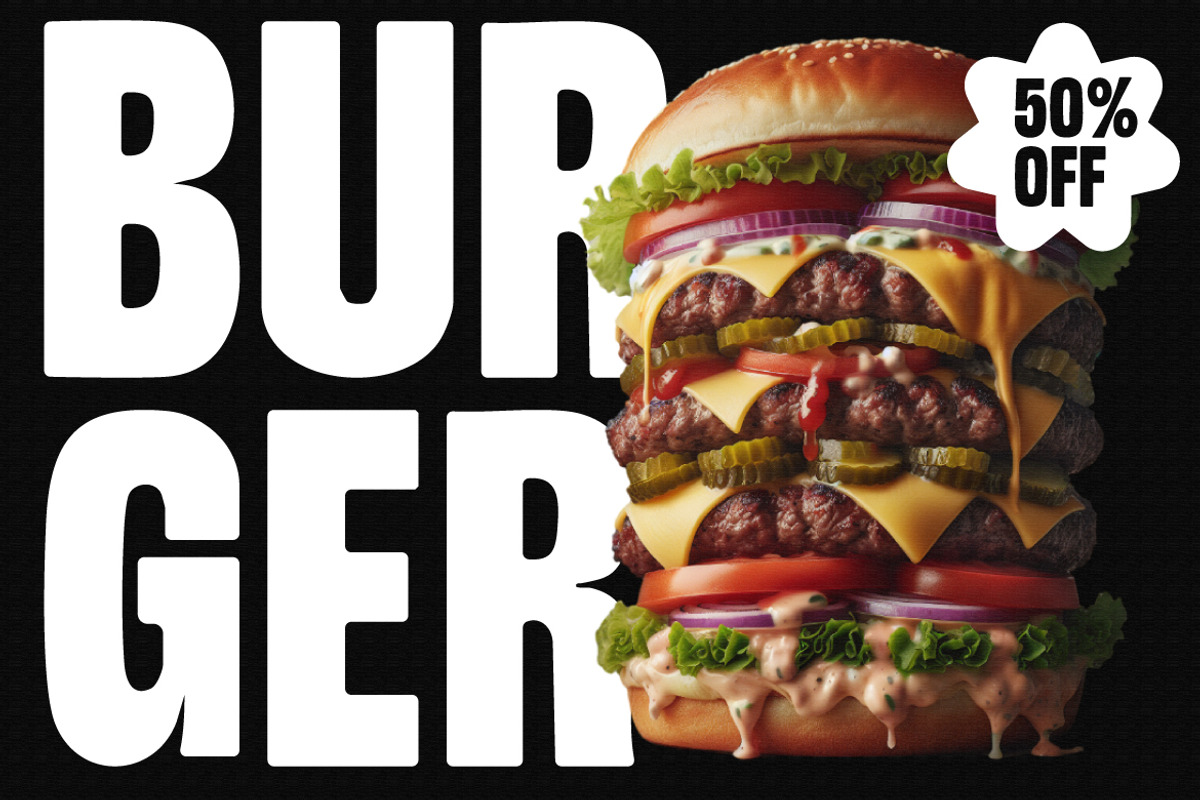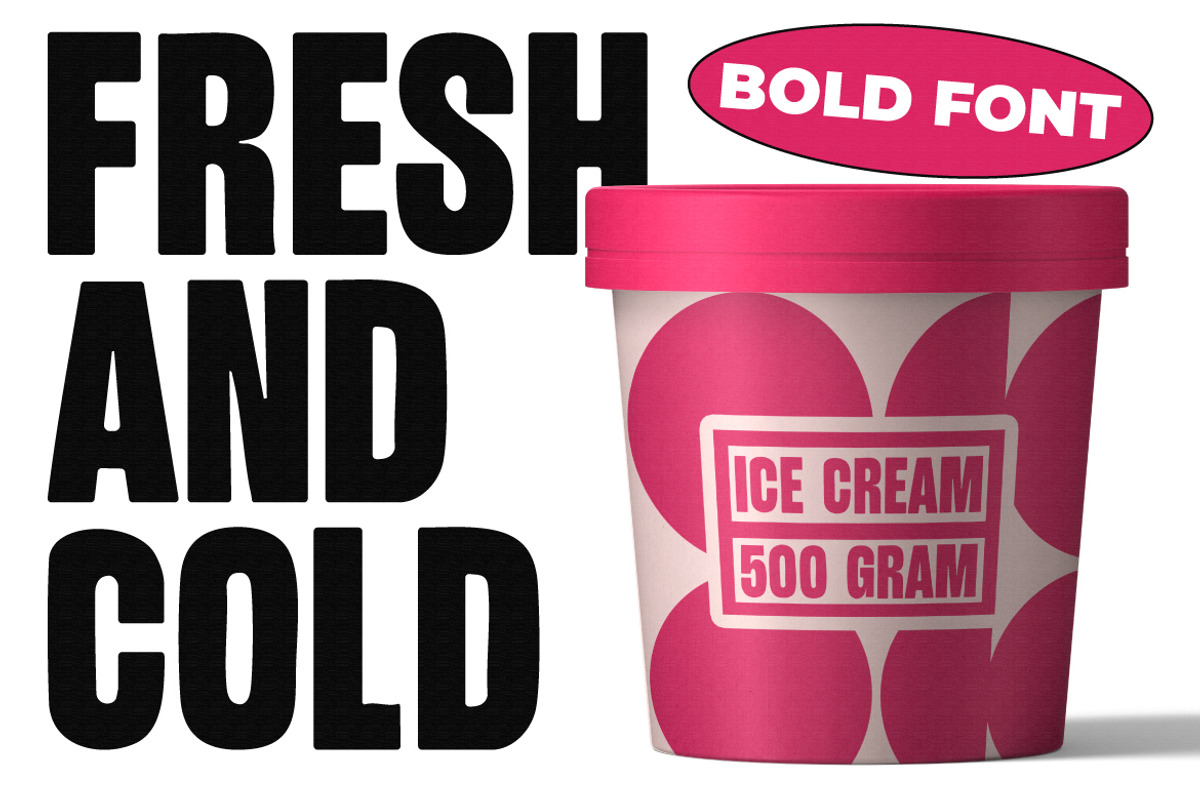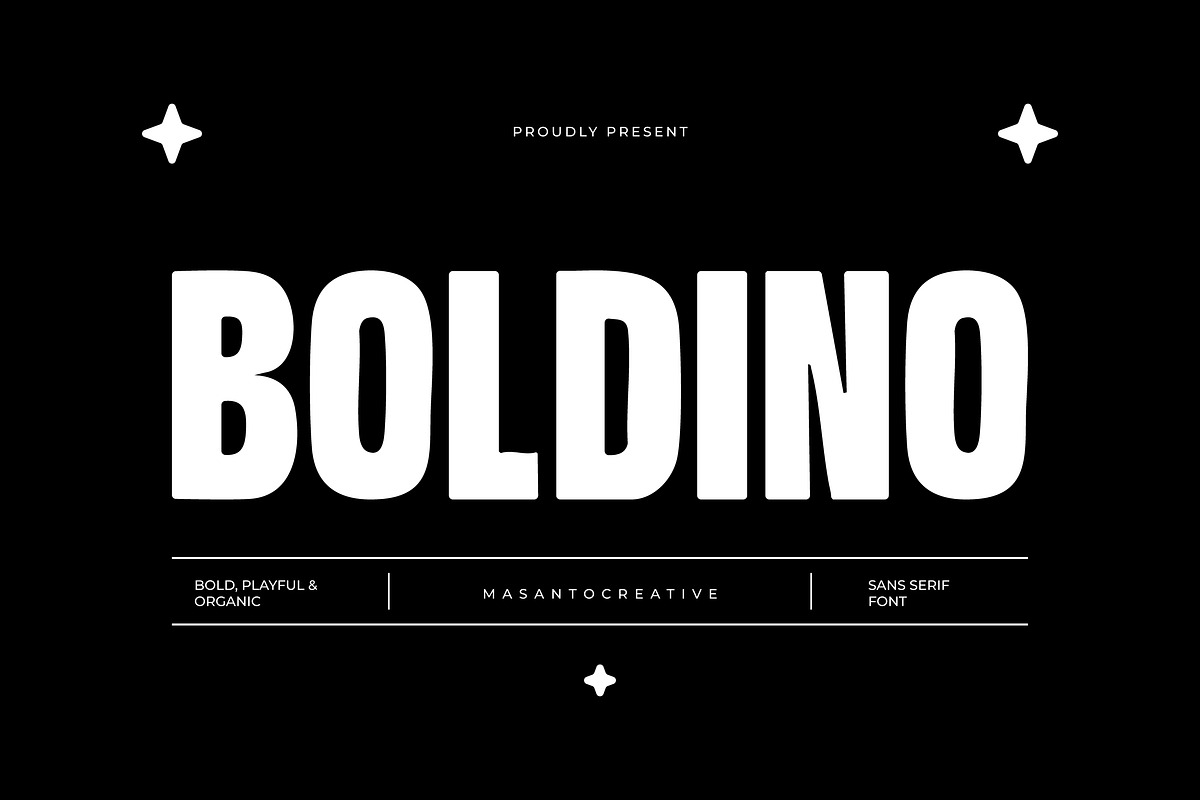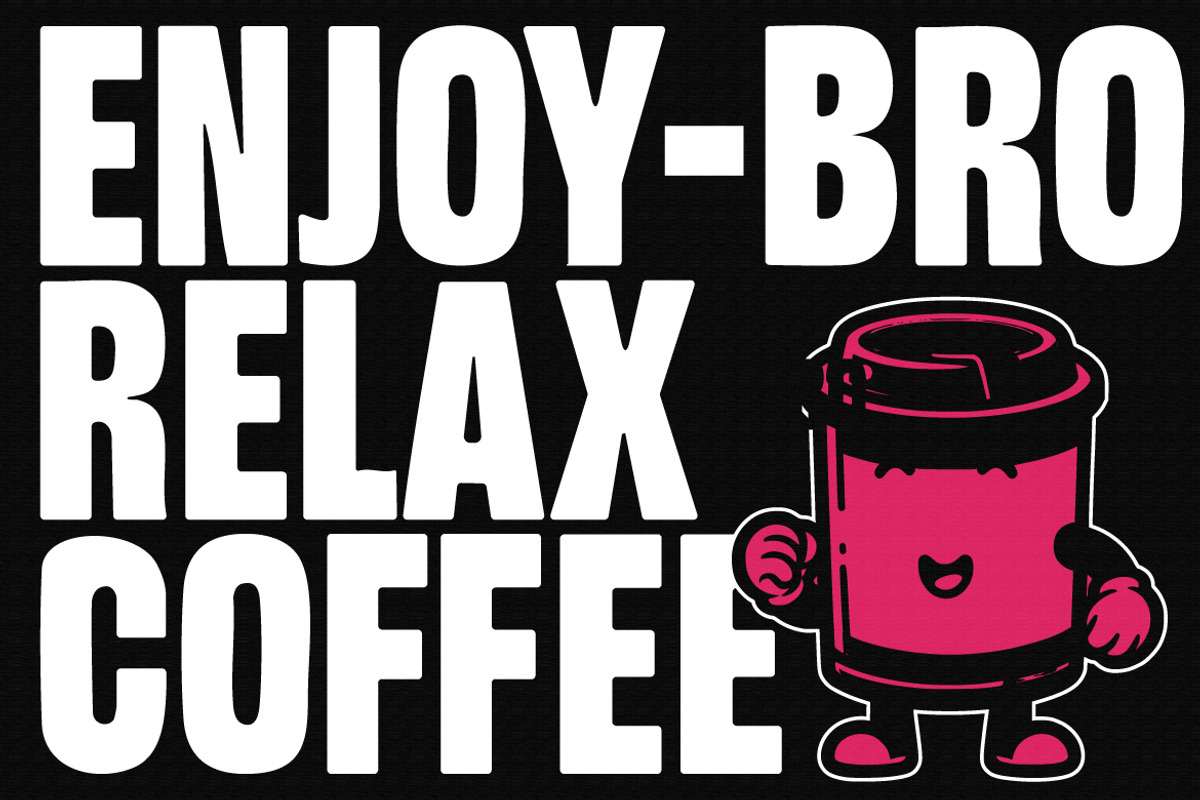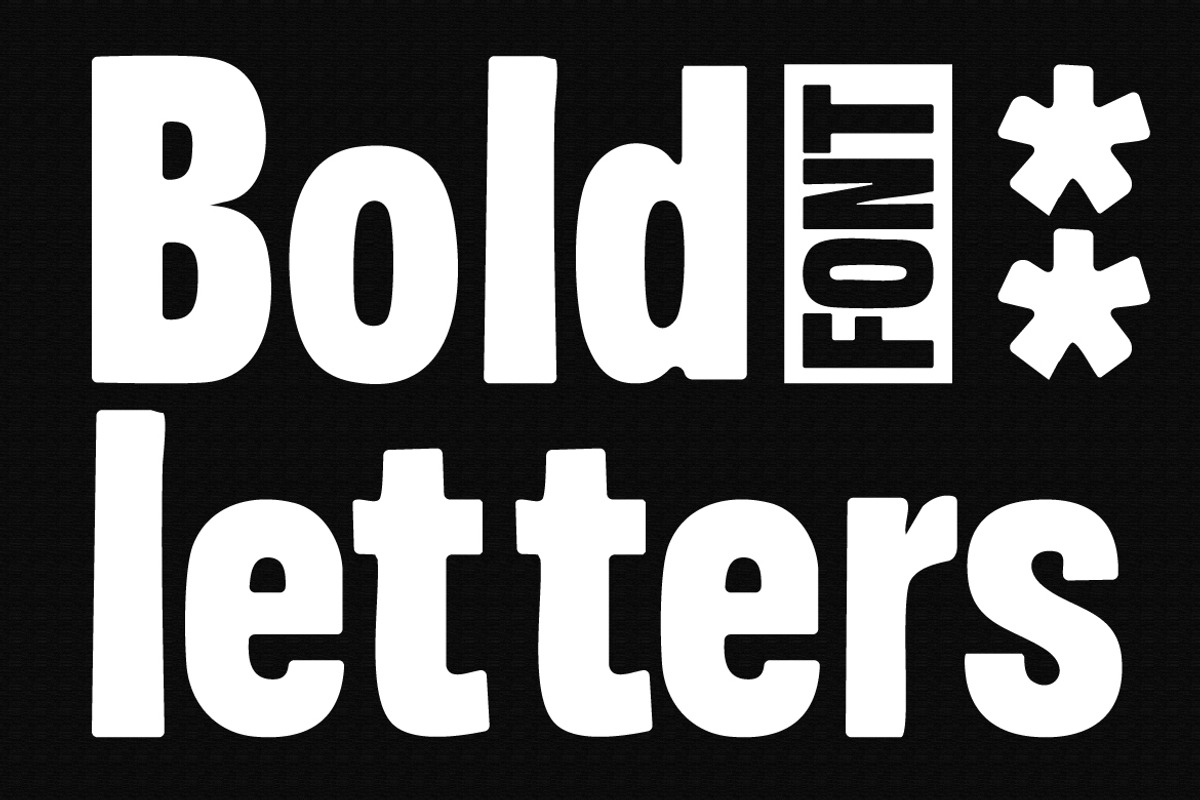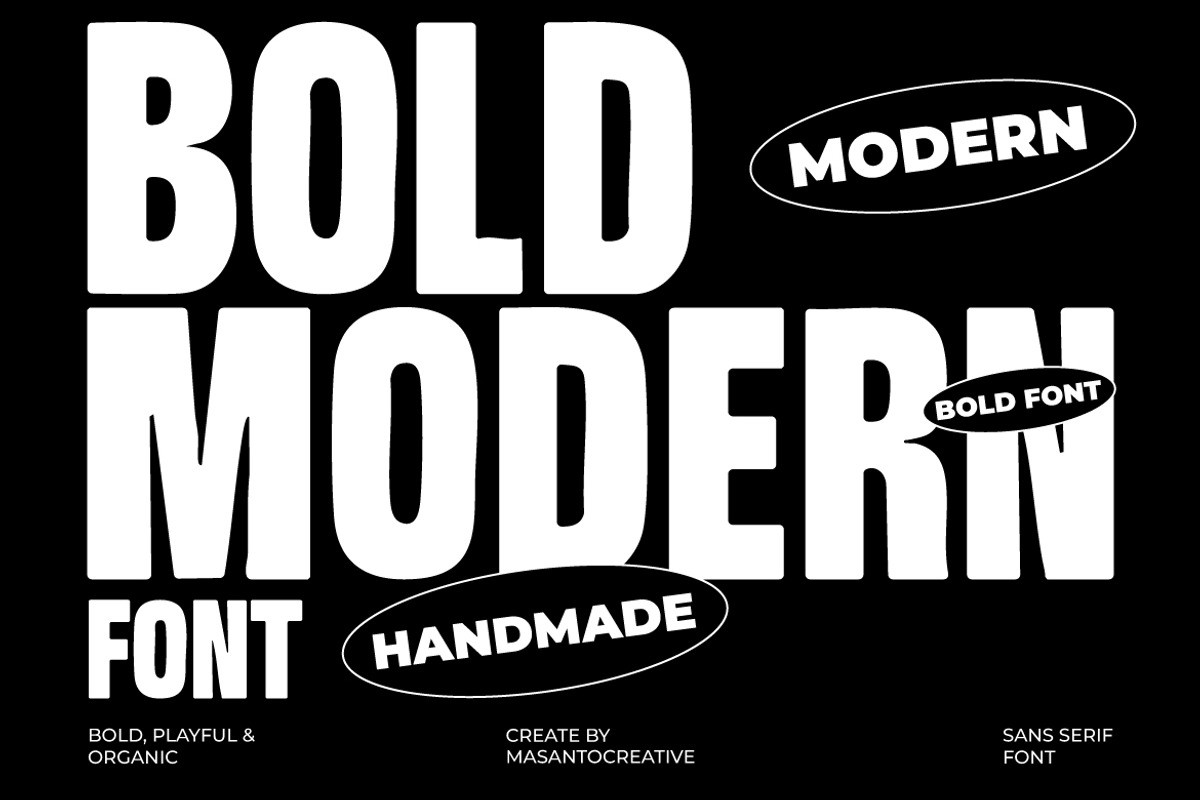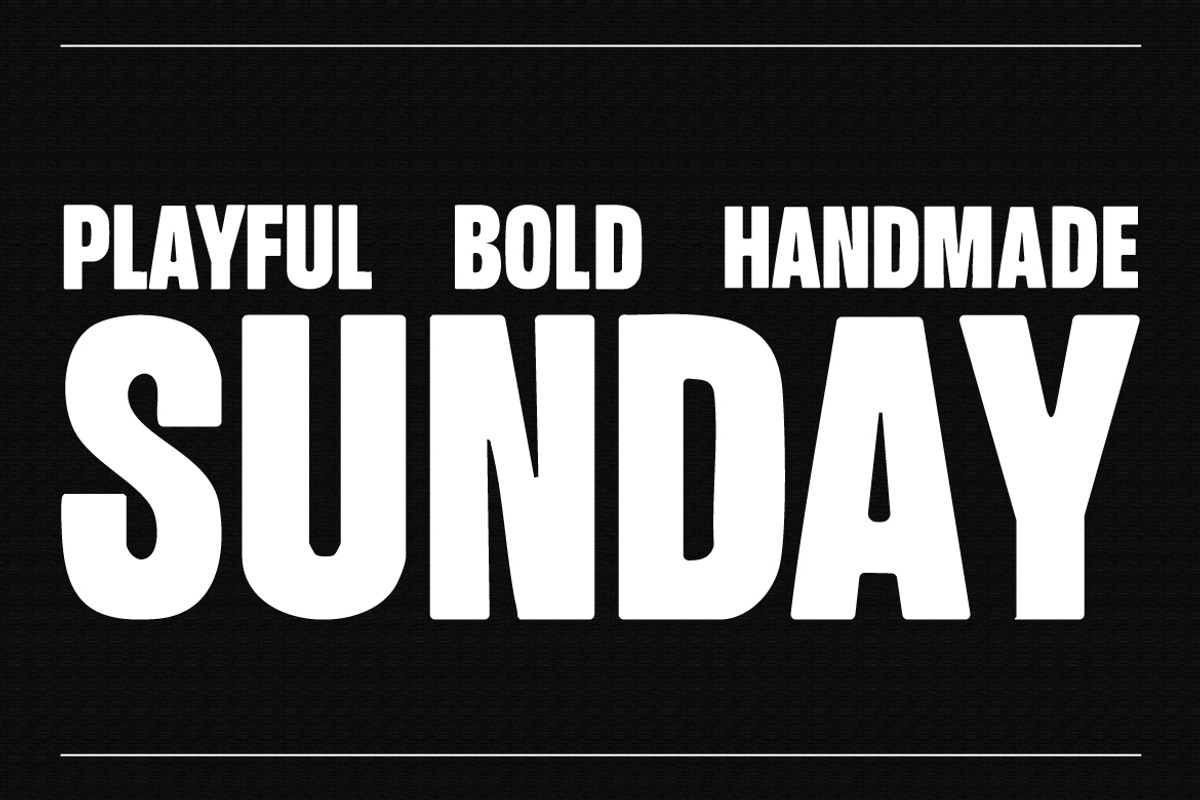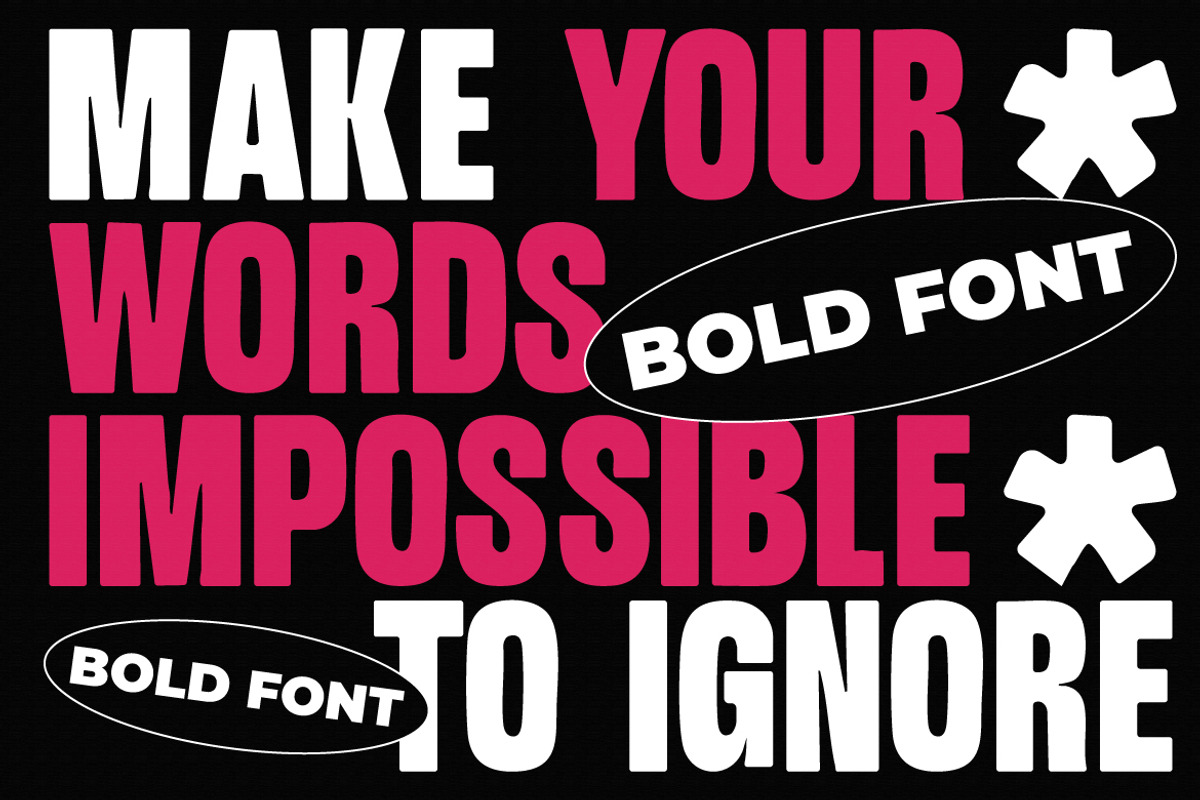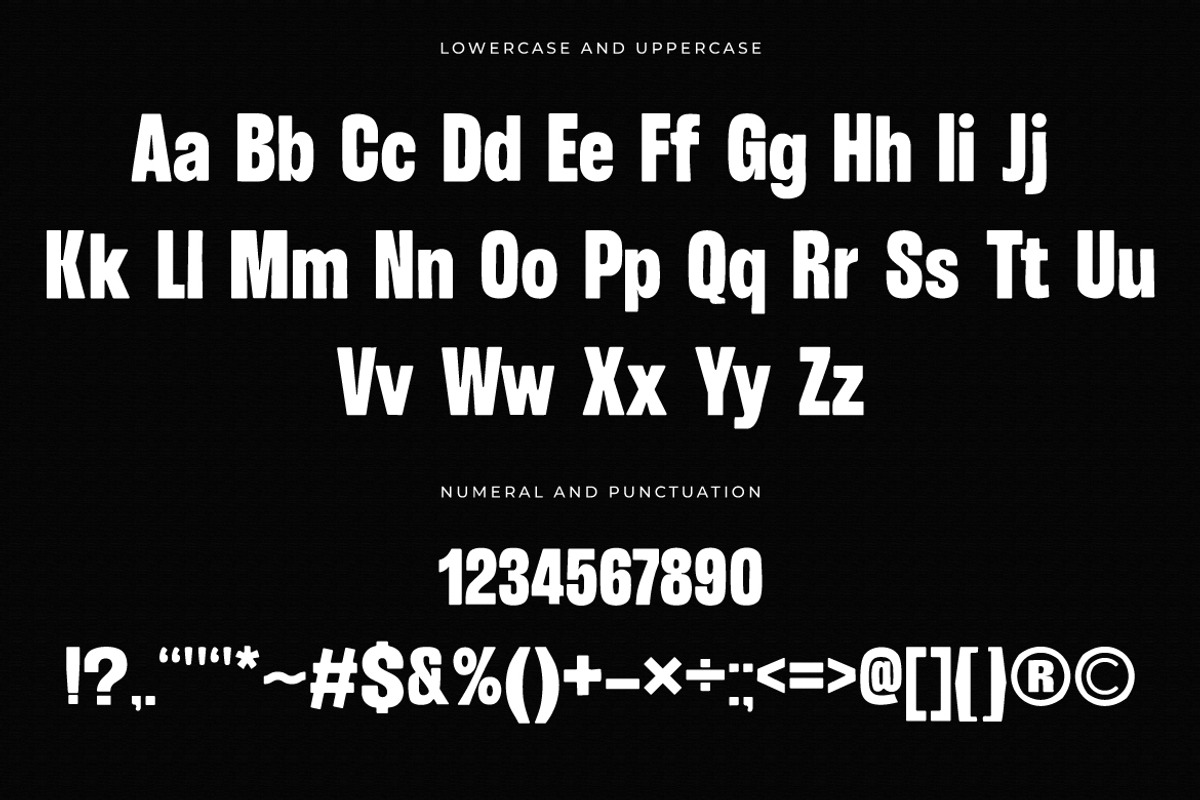
Boldino – Playful Bold Sans Serif Fo
Boldino is a bold sans serif font with a playful, handmade, and organic character that makes every word stand out with confidence. Its unique letterforms are perfect for posters, branding, packaging, food & beverage ads, retro-modern design, and social media content. With a strong yet friendly vibe, Boldino adds a fun and impactful touch to any creative project. It comes complete with uppercase & lowercase letters, numbers, punctuation, and symbols – making it versatile for both display and everyday design use.
- Playful & handmade bold sans serif
- Complete numerals & punctuation
- Perfect for posters, packaging, branding, quotes, and social media